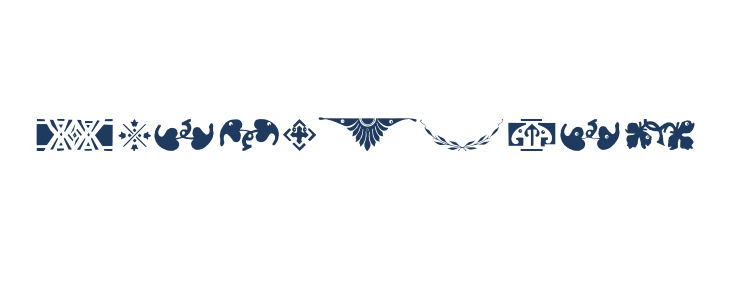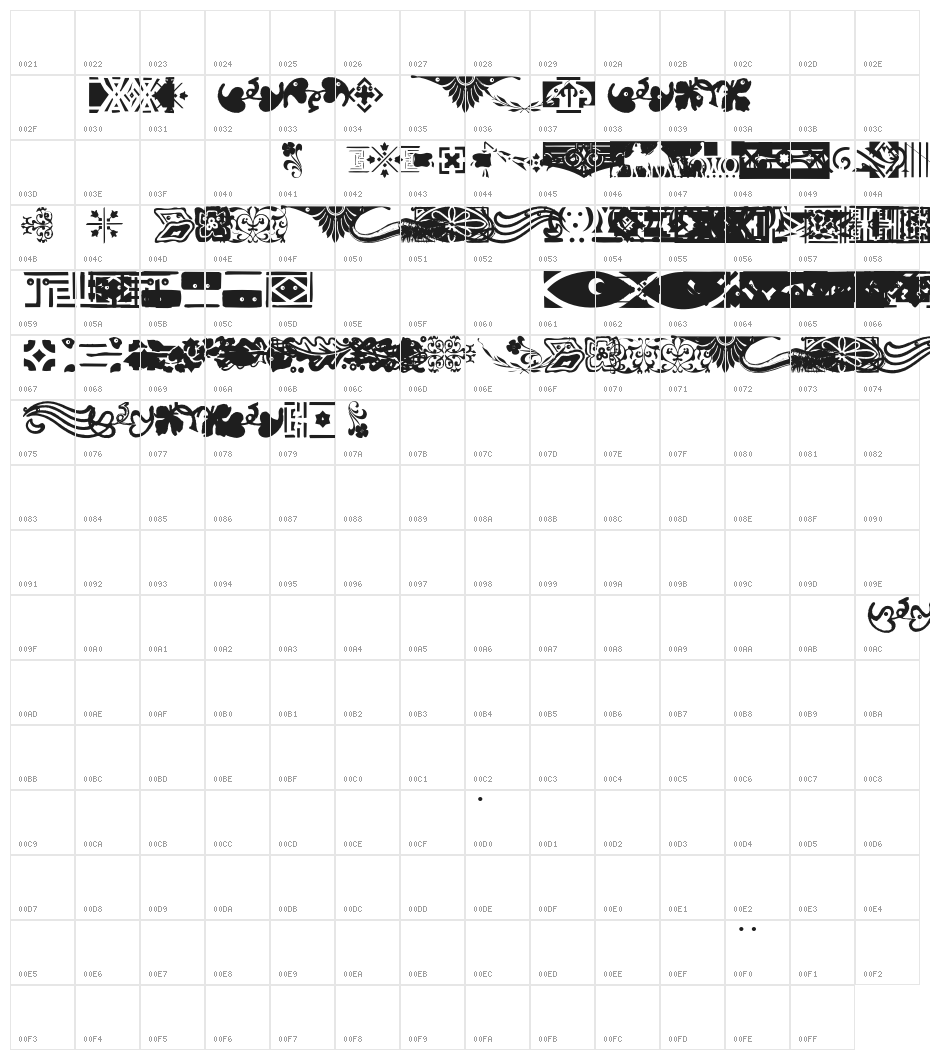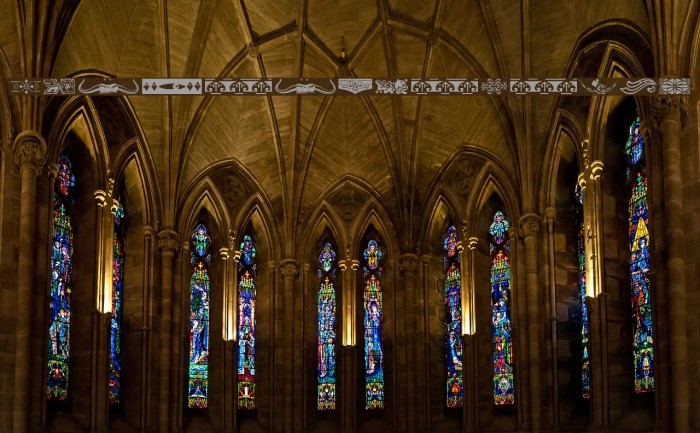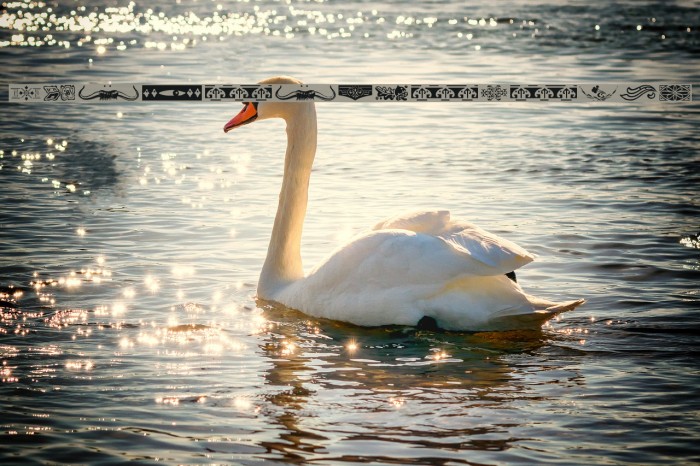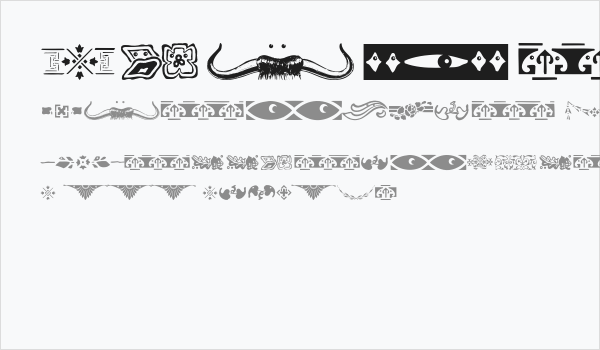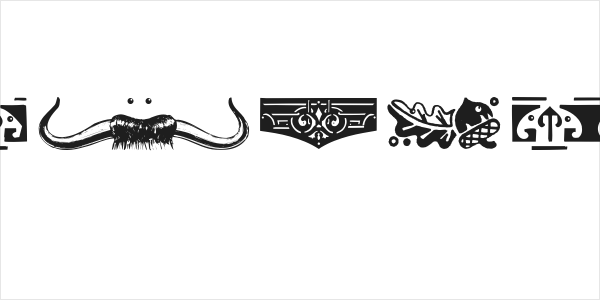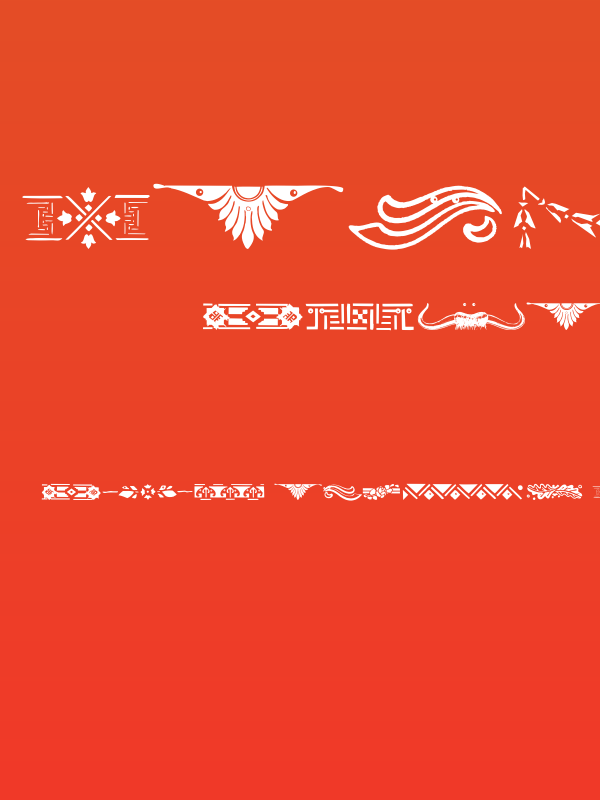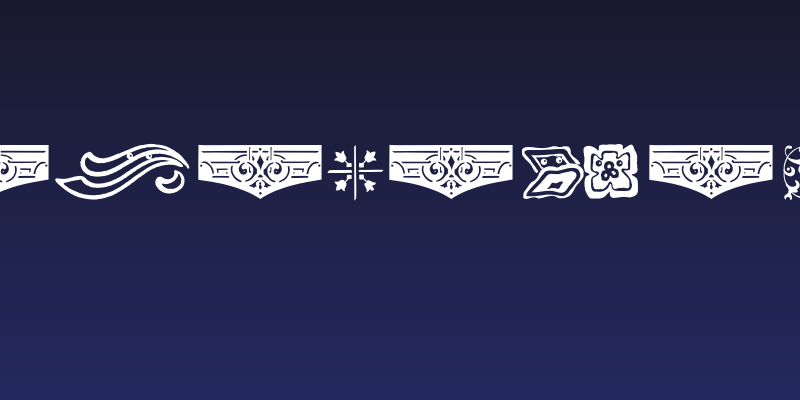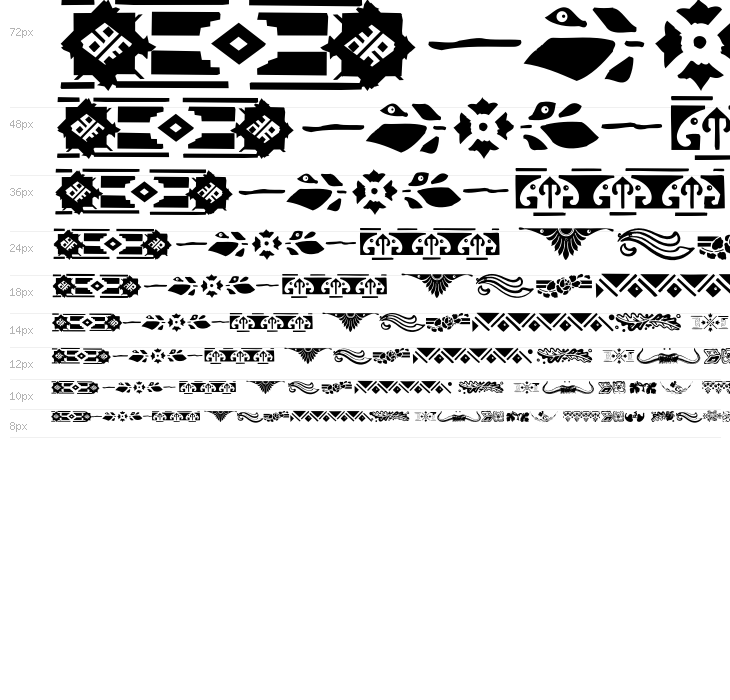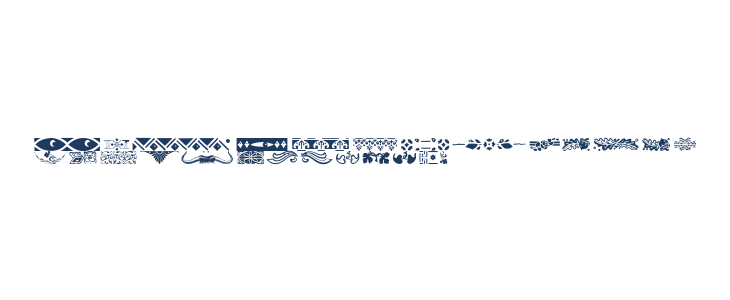
BorderElements Font
BorderElements Description
A highly decorative and ornamental font composed of intricate border elements, flourishes, and motifs. Each character is represented by a unique border or divider design, featuring symmetrical patterns, swirls, geometric shapes, and floral accents. The style is bold and visually striking, with high contrast between thick and thin lines.
| Overall Style | Decorative, Vintage, Ornamental |
| Use Case | Borders, Frames, Decorative accents, Logos |
| Proposed Projects | Invitations, certificates, scrapbooking, decorative frames, vintage posters, packaging, and artistic projects. |